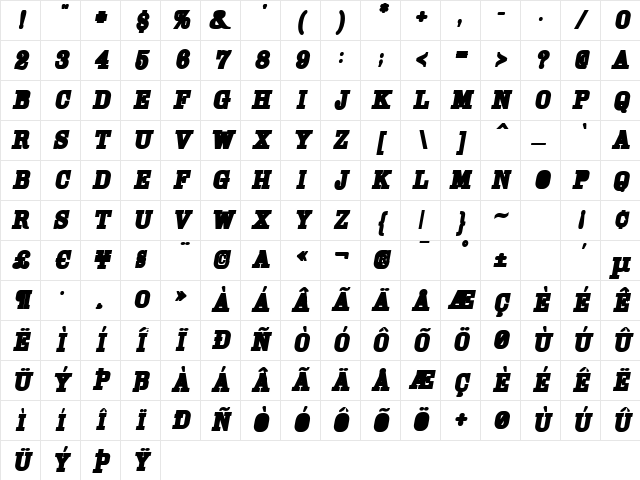
Cam ExtraBoldOblique
Style: ExtraBoldOblique
Foundry: YouWorkForThem
Designer: Michael Cina
Design Context for Cam
Cam is a composed and adaptable typeface that performs quietly and consistently across a wide range of design contexts. The slanted form adds forward momentum and visual energy. Its bold stroke weight gives it real presence on the page.